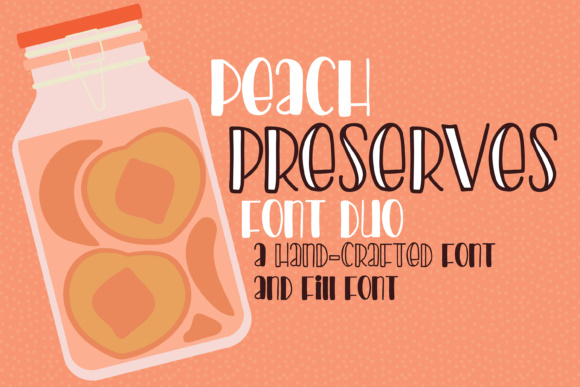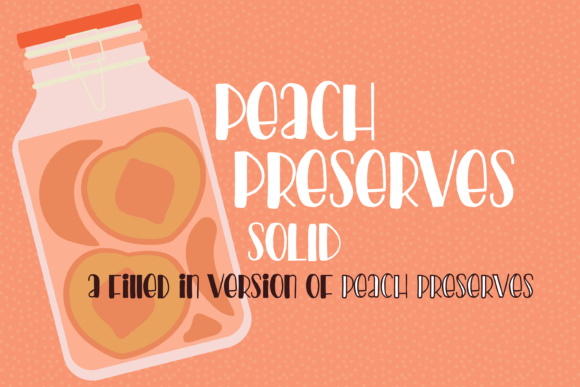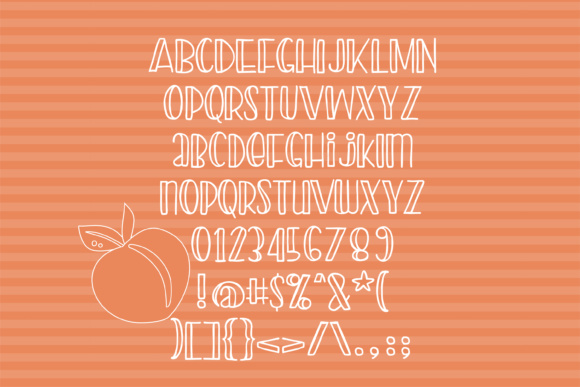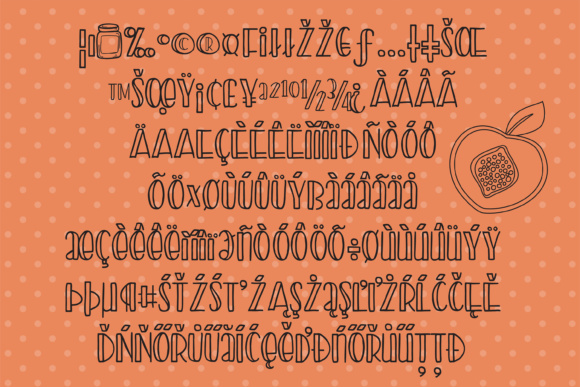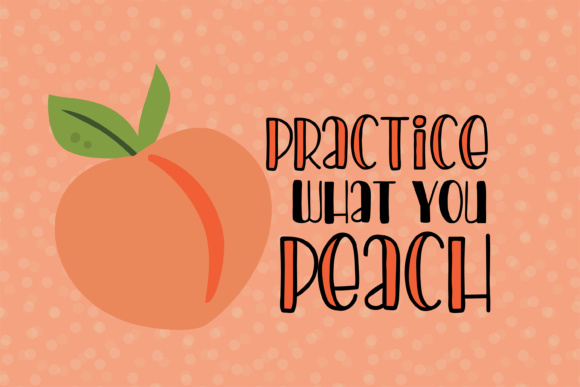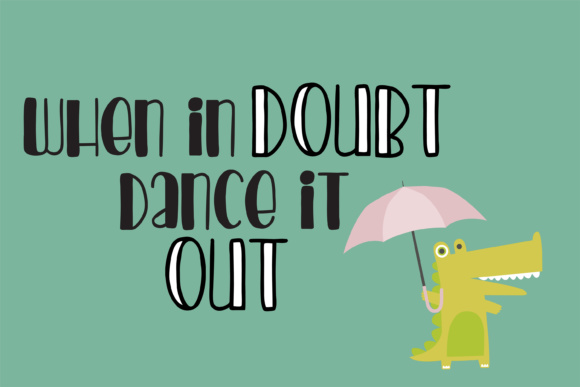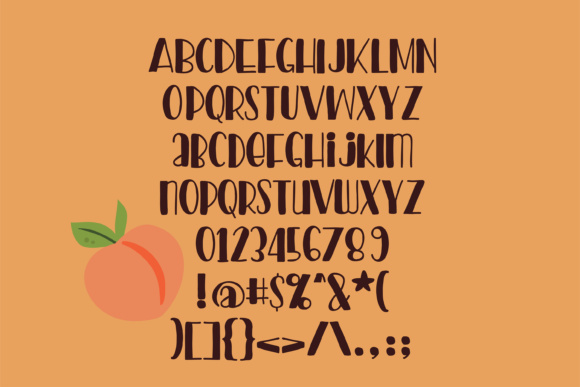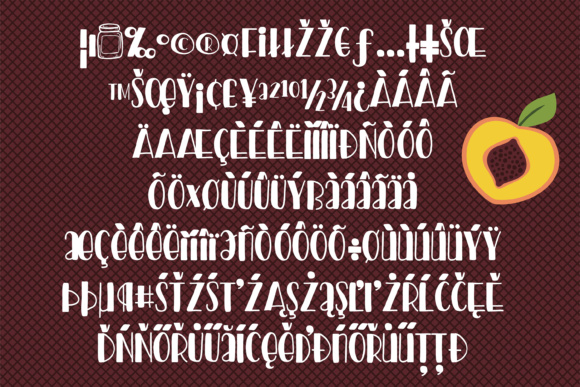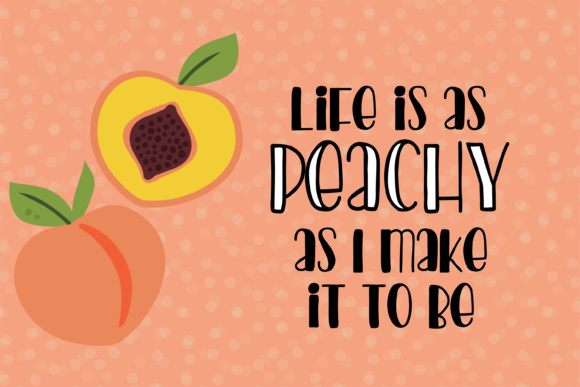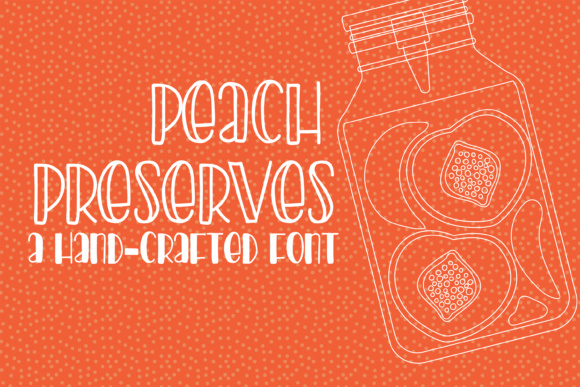
Peach Preserves Font
About Peach Preserves Font
Peach Preserves is a cute hand-crafted font duo, perfect for layering or using in combination with one another for a whimsical approach to typographic designs. This font has a breezy and casual vibe, and works well in a large range of works.